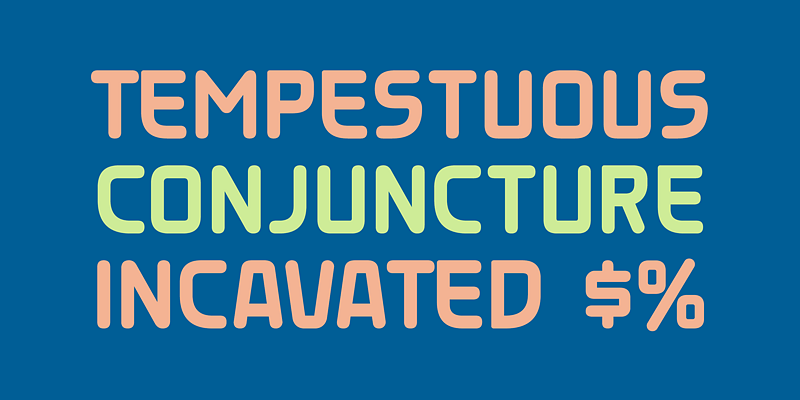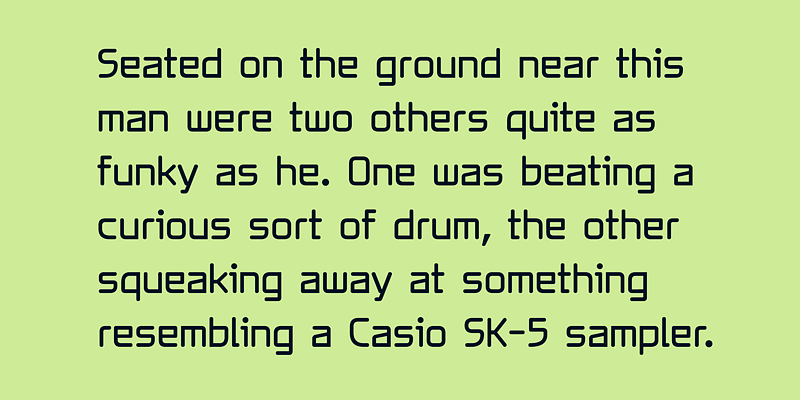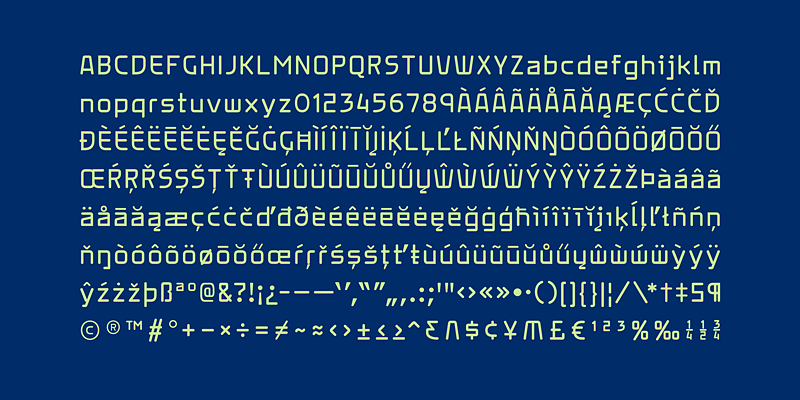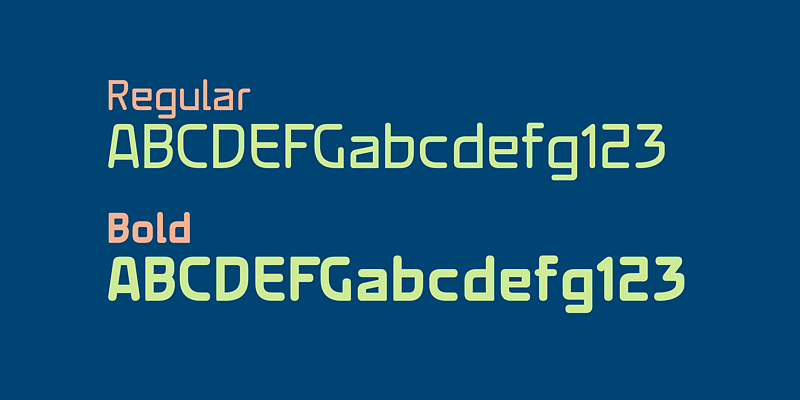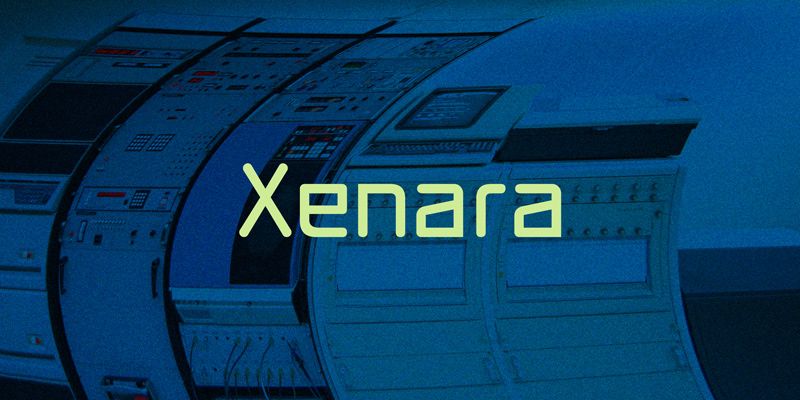
Xenara draws from the rounded lettering of 1970s calculator keys and electric typewriters, then gives that technical language an unfamiliar alphabetic twist. Alternate forms include a barless A, trident M, zigzag E, and square S, making a title feel increasingly strange while keeping a consistent keycap logic. It suits science exhibits, electronic instruments, experimental music graphics, game interfaces, and model names for equipment that should look plausible yet a little otherworldly. Regular and Bold provide enough contrast for a title and a secondary label. The unusual forms are particularly effective in model names that should look as though they belong to an unfamiliar piece of hardware.